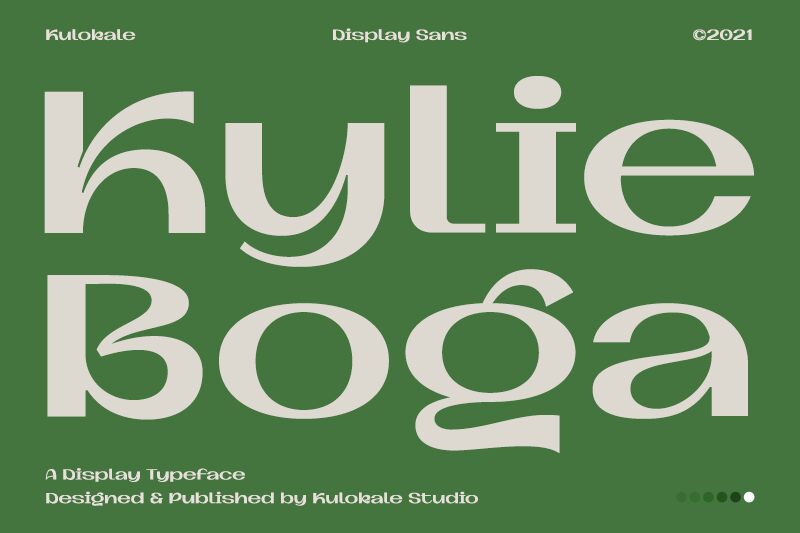
Kylie Boga, a mesmerizing display font by Kulokale Studio, captures the essence of retro allure. Its expanded width adds a touch of sophistication to any creative project. Perfect for vintage-inspired logos, nostalgic branding, or eye-catching signage, Kylie Boga brings an air of elegance to album covers and packaging designs alike. With its bold and alluring curves, this typeface demands attention and sets the stage for unforgettable visual experiences. Let Kylie Boga transport your audience to a bygone era where style reigns supreme.
Kulokale Studio
Kylie Boga
M Arif Dwi Prasetyo & Eko Nurcahyo